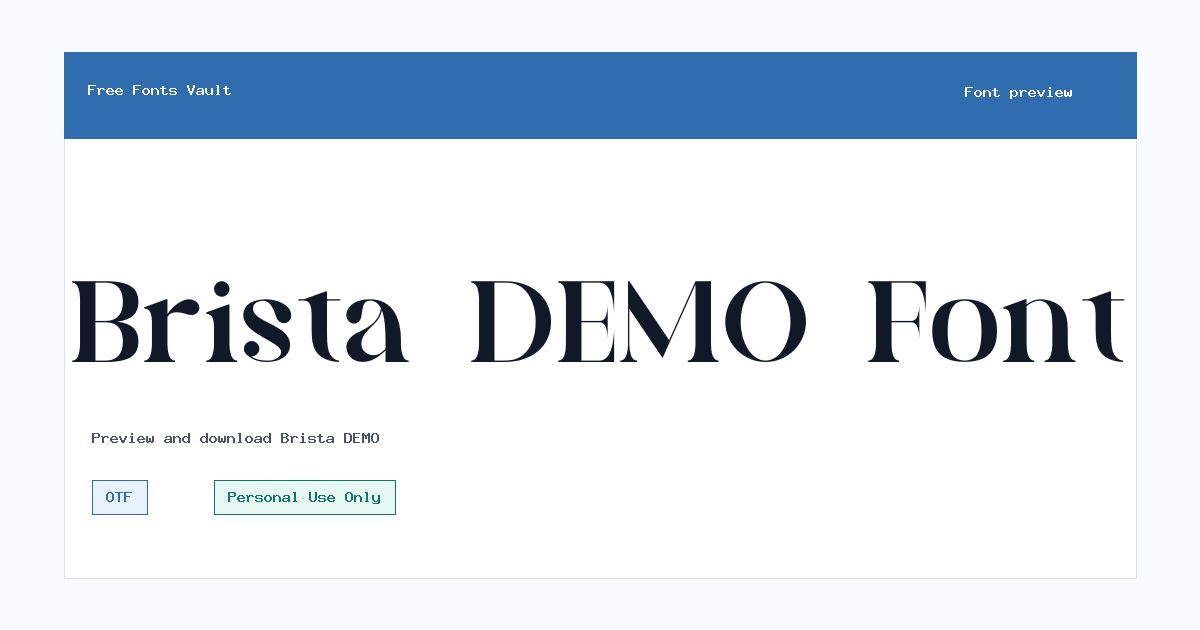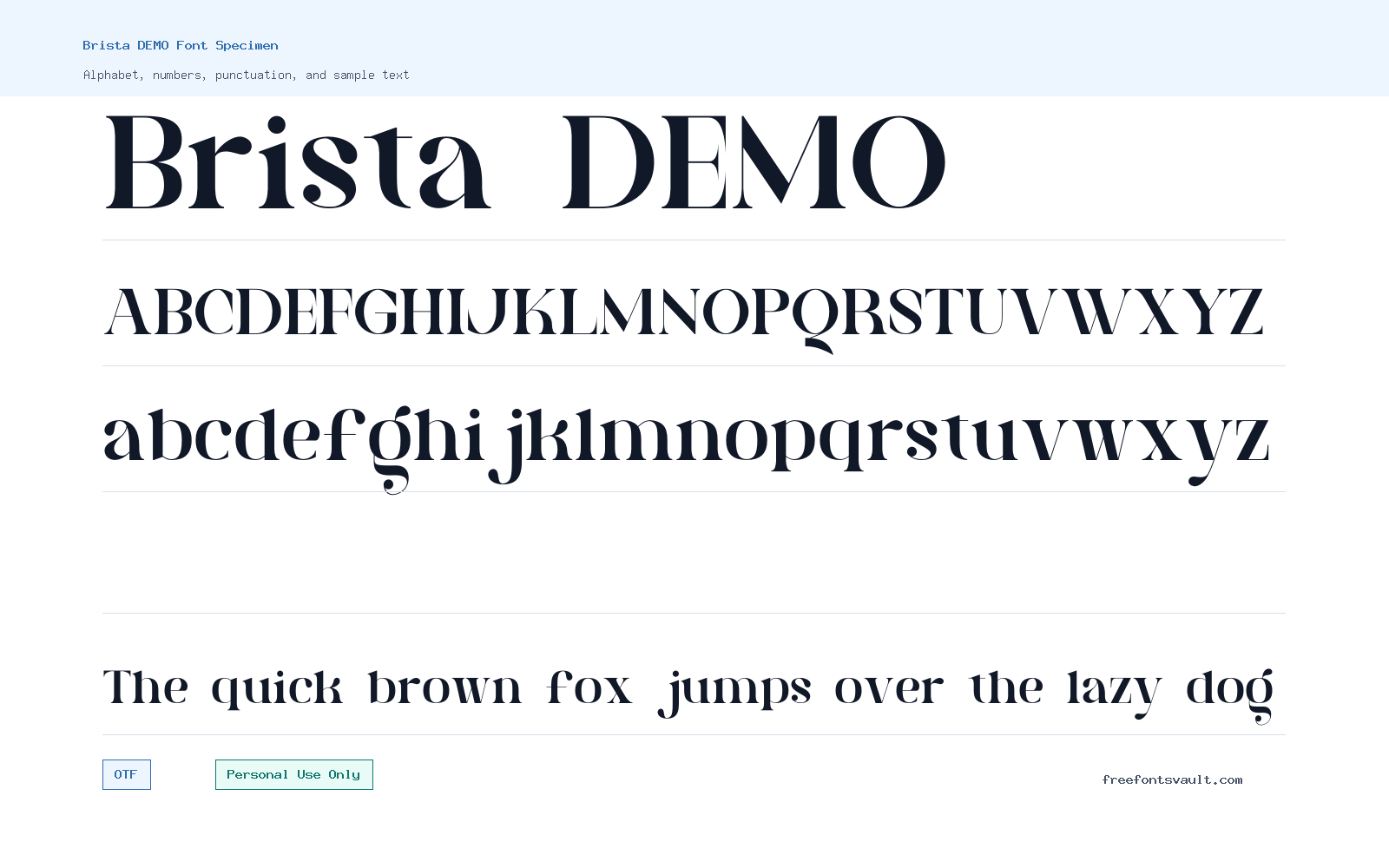
Brista DEMO
- Designer Ahmad Suhadi
Brista DEMO font.
Brista DEMO is a personal-use display font with a serif look and a regular OTF file format. It is a good font to try when you want elegant title text, stylish branding drafts, or short decorative wording in a design preview.
About Brista DEMO
Brista DEMO is listed as a serif font and comes in one regular style with normal weight. The available font file is an OTF file, which is widely supported by design software, desktop publishing tools, and many font preview projects. Because this is a demo version, it is best treated as a trial font for testing its shapes, spacing, and overall mood before using it in a finished project.
Use the preview box to test words that match your real design. Serif display fonts can look attractive in names, headlines, invitations, packaging concepts, social graphics, and logo drafts, but they should always be checked at the exact size you plan to use. Try uppercase, lowercase, punctuation, and any special characters you need. If your layout depends on long body text, test several lines first, because decorative or display-focused serif fonts often work better in short text than in dense paragraphs.
- Personal-use demo font suited to previewing elegant serif display text.
- Logo drafts, brand mockups, and name-based design concepts.
- Invitations, posters, social media headings, packaging tests, and short display text.
The designer is listed as Ahmad Suhadi. No foundry name or official designer link is included with the available font details.
Who designed Brista DEMO?
The designer is listed as Ahmad Suhadi.
What is Brista DEMO best used for?
It is best tested for short display text such as titles, logo drafts, invitations, packaging concepts, and social media graphics. Check readability carefully before using it for longer text.
Does Brista DEMO include multiple styles?
Only one regular style is listed for this font family.